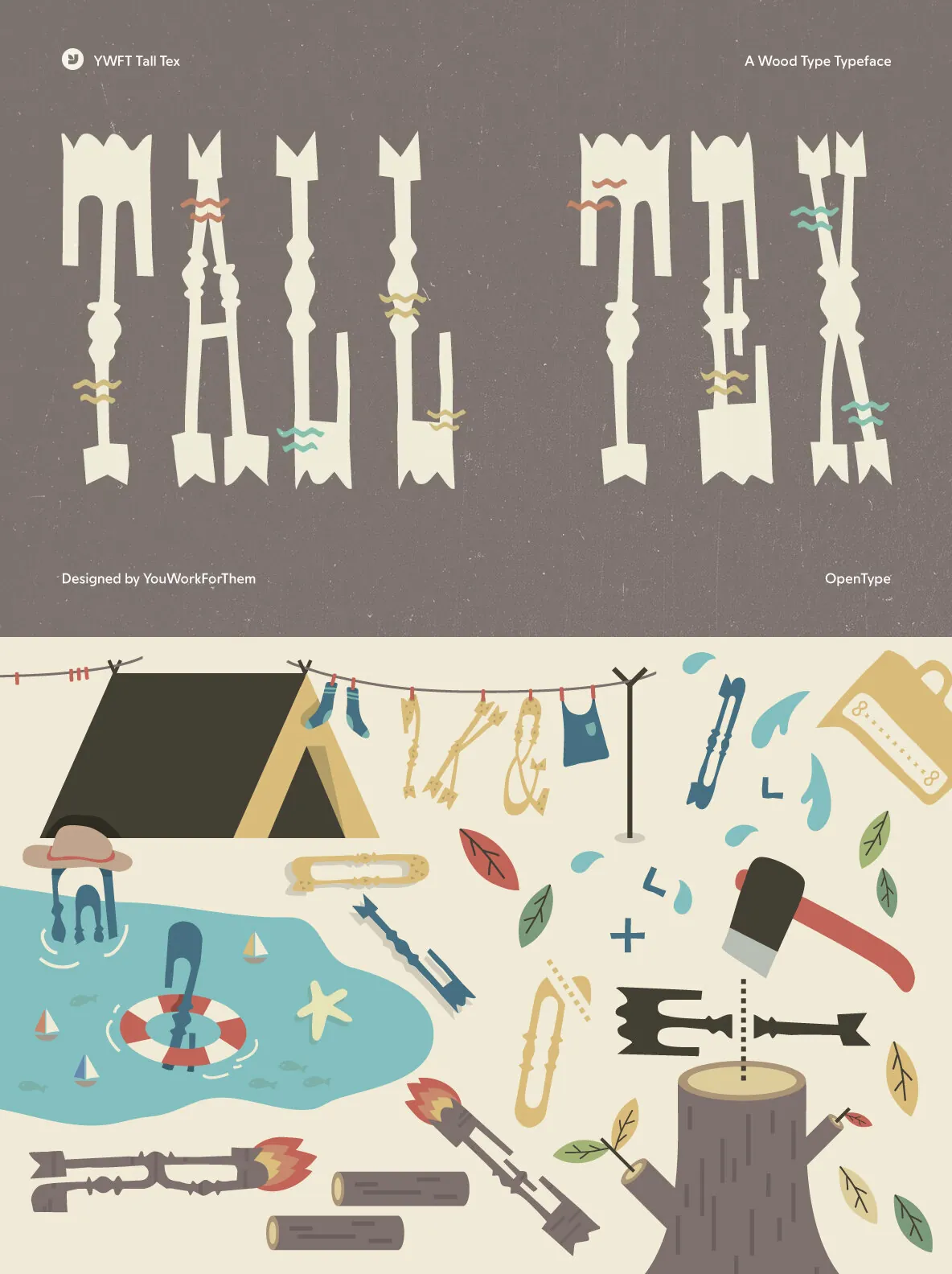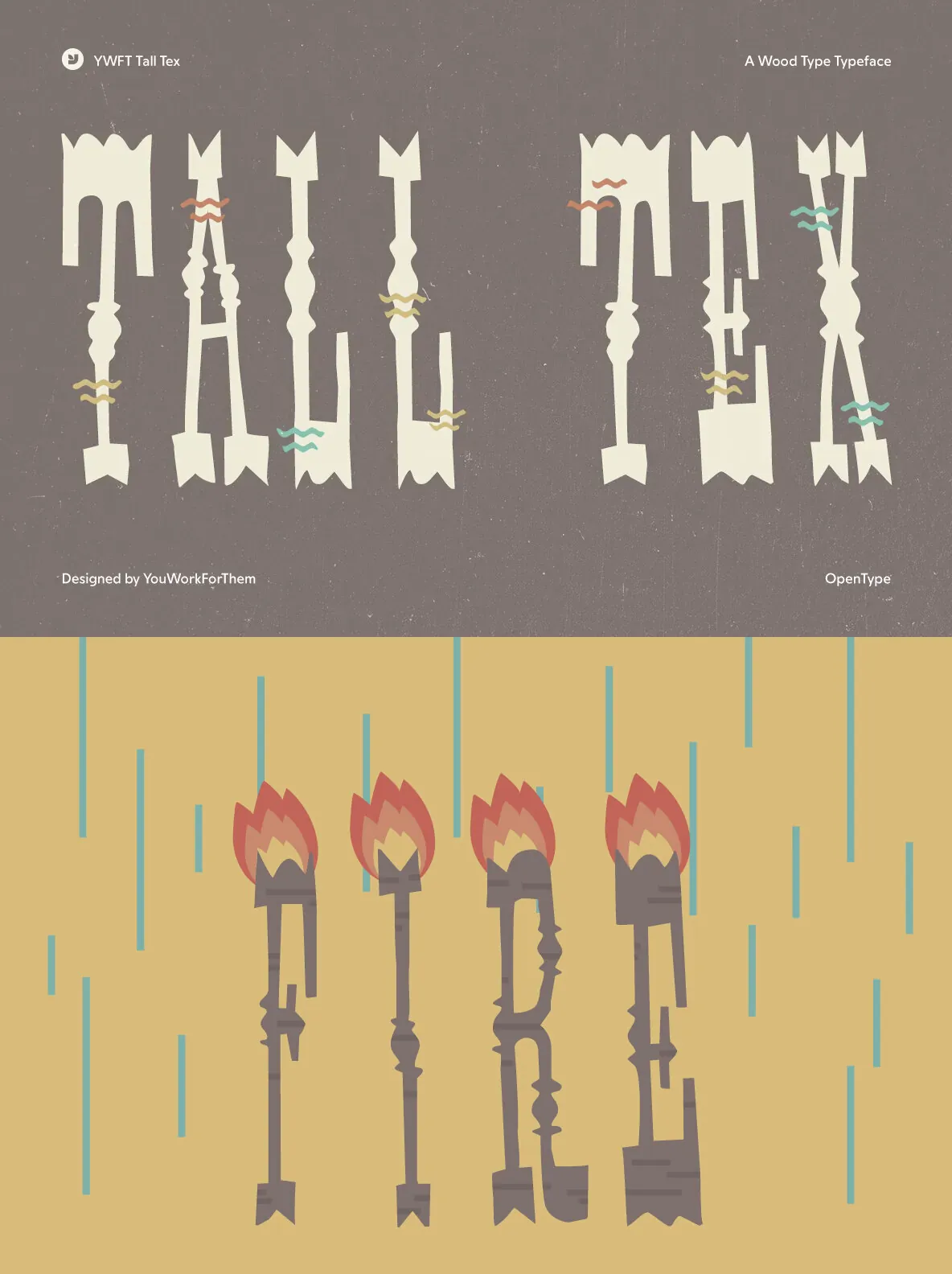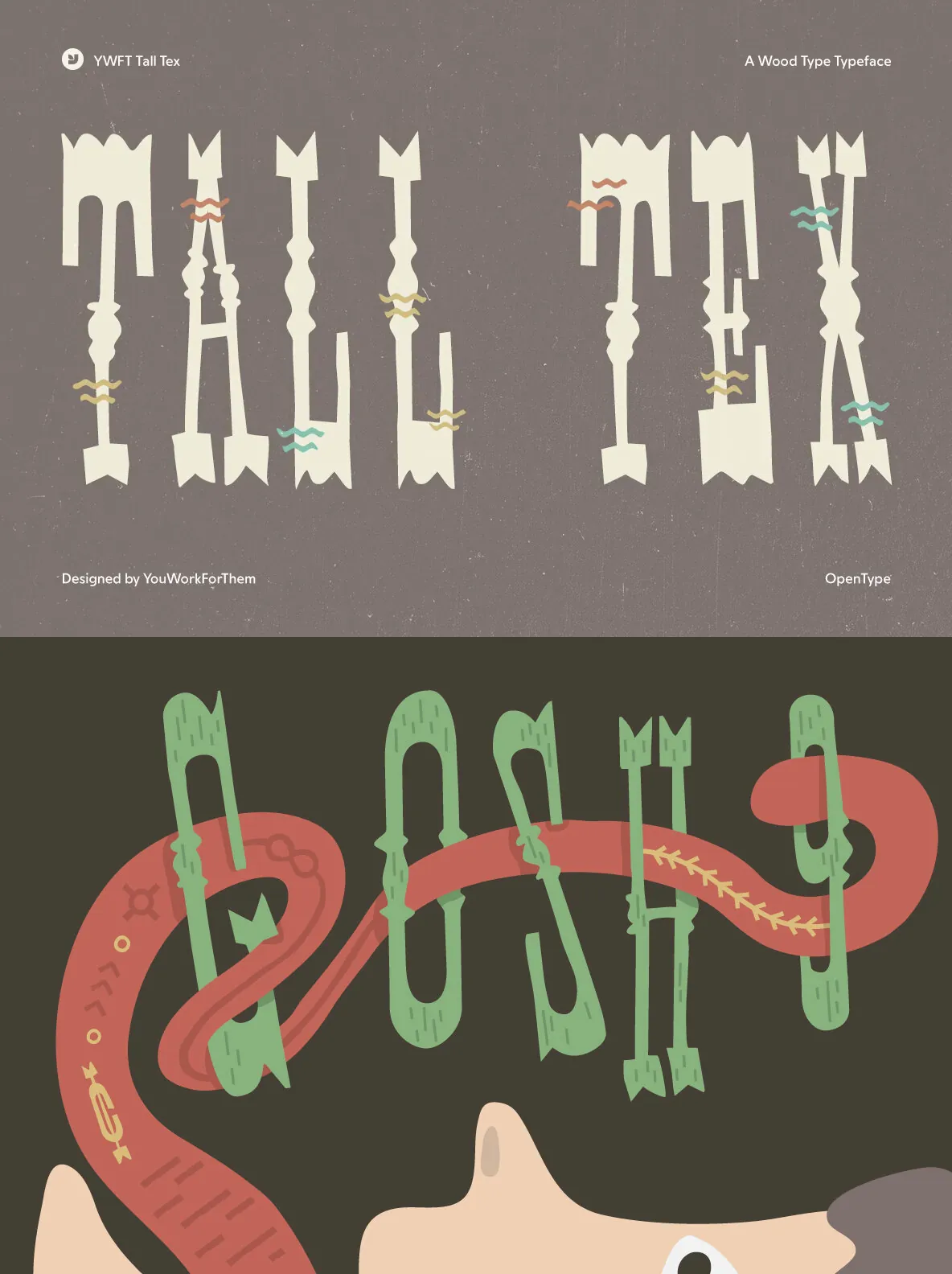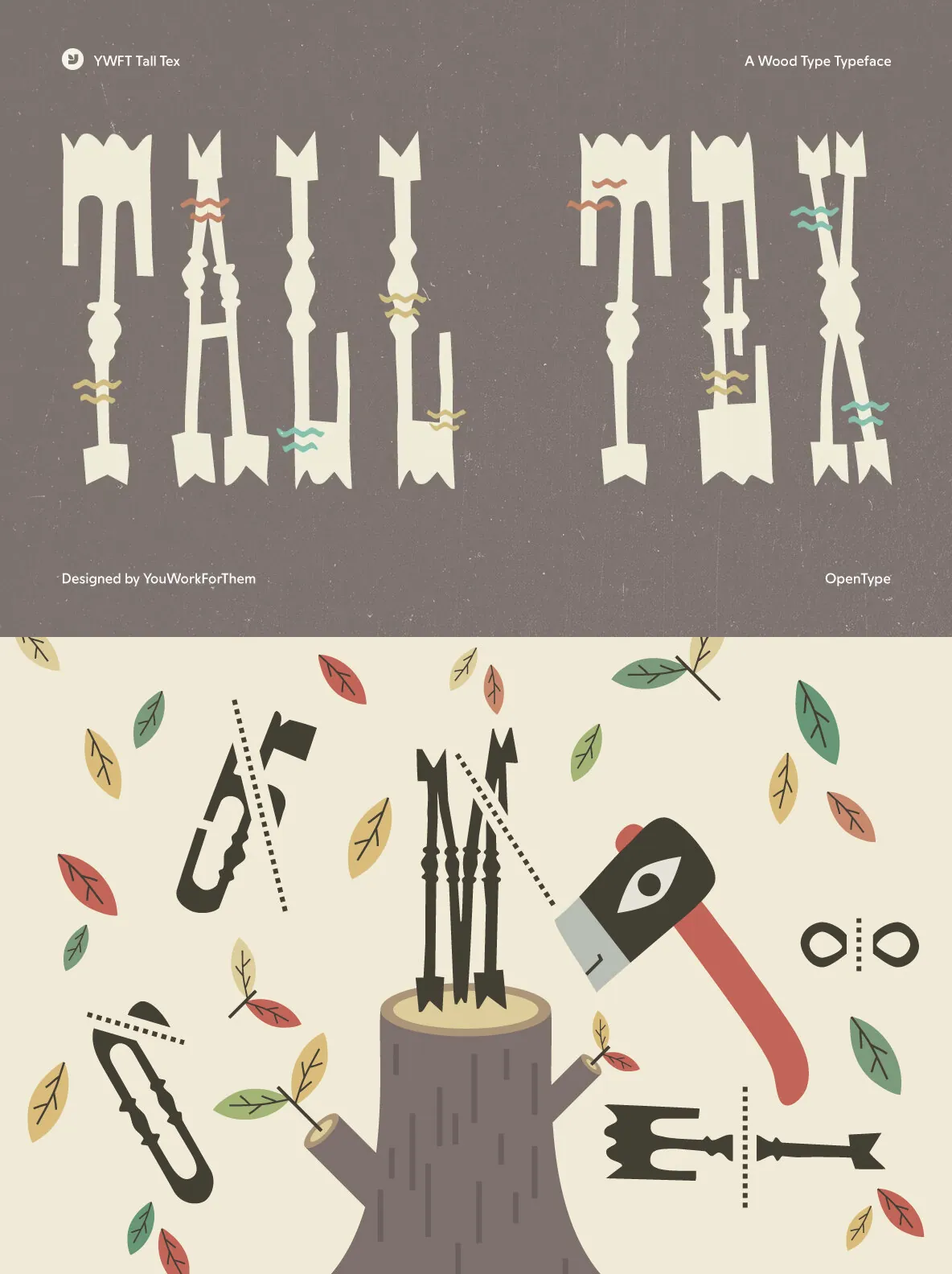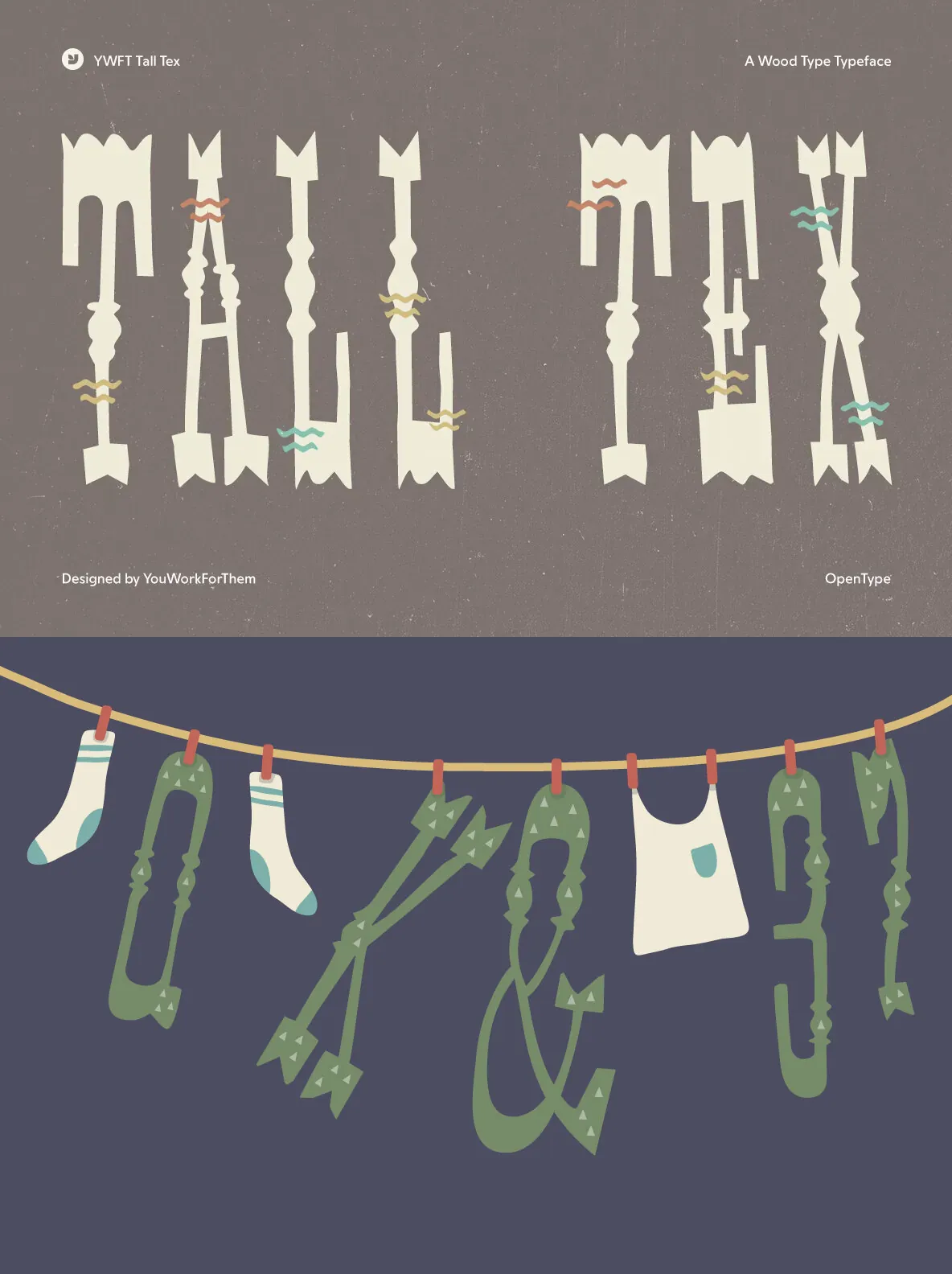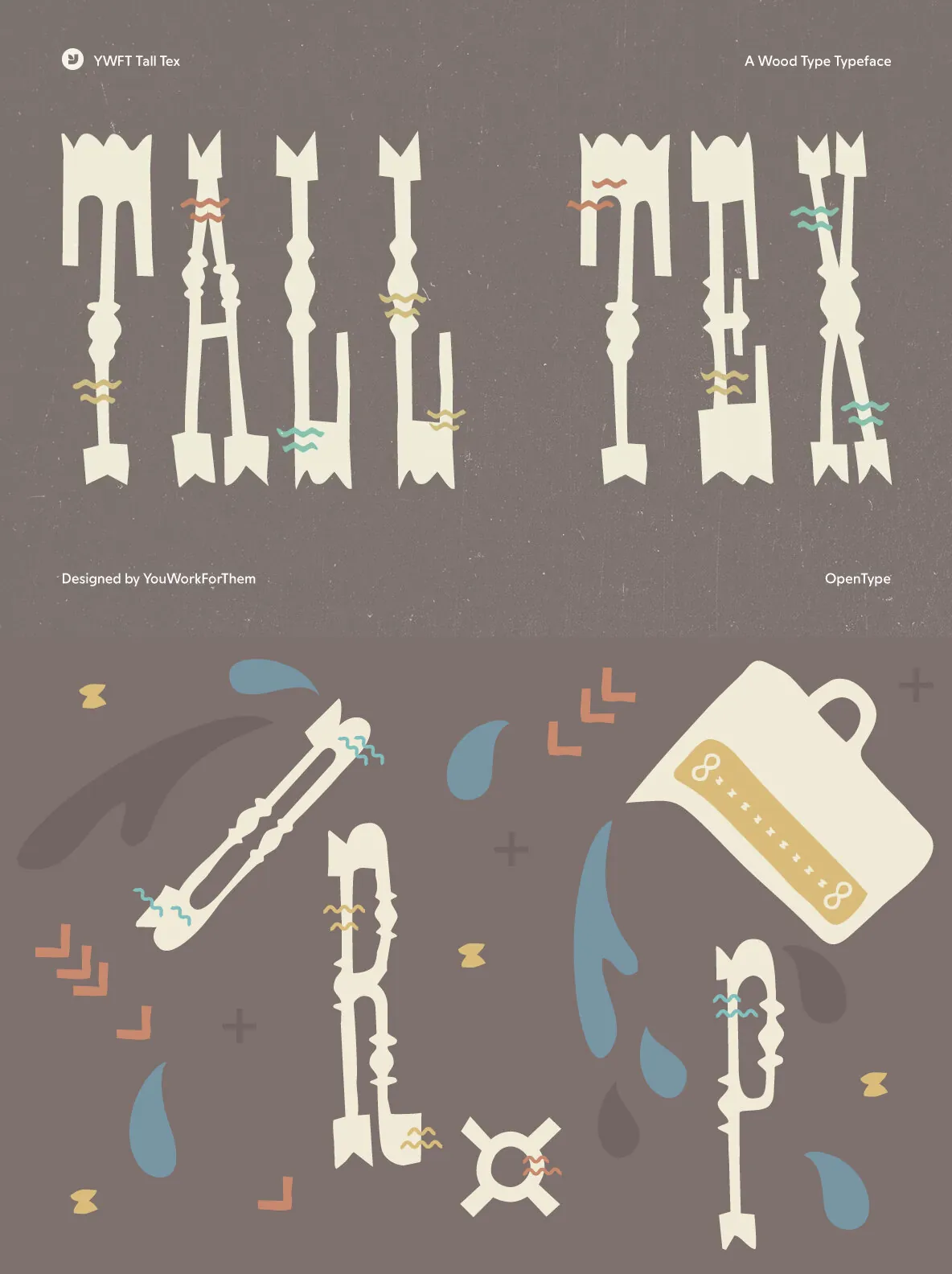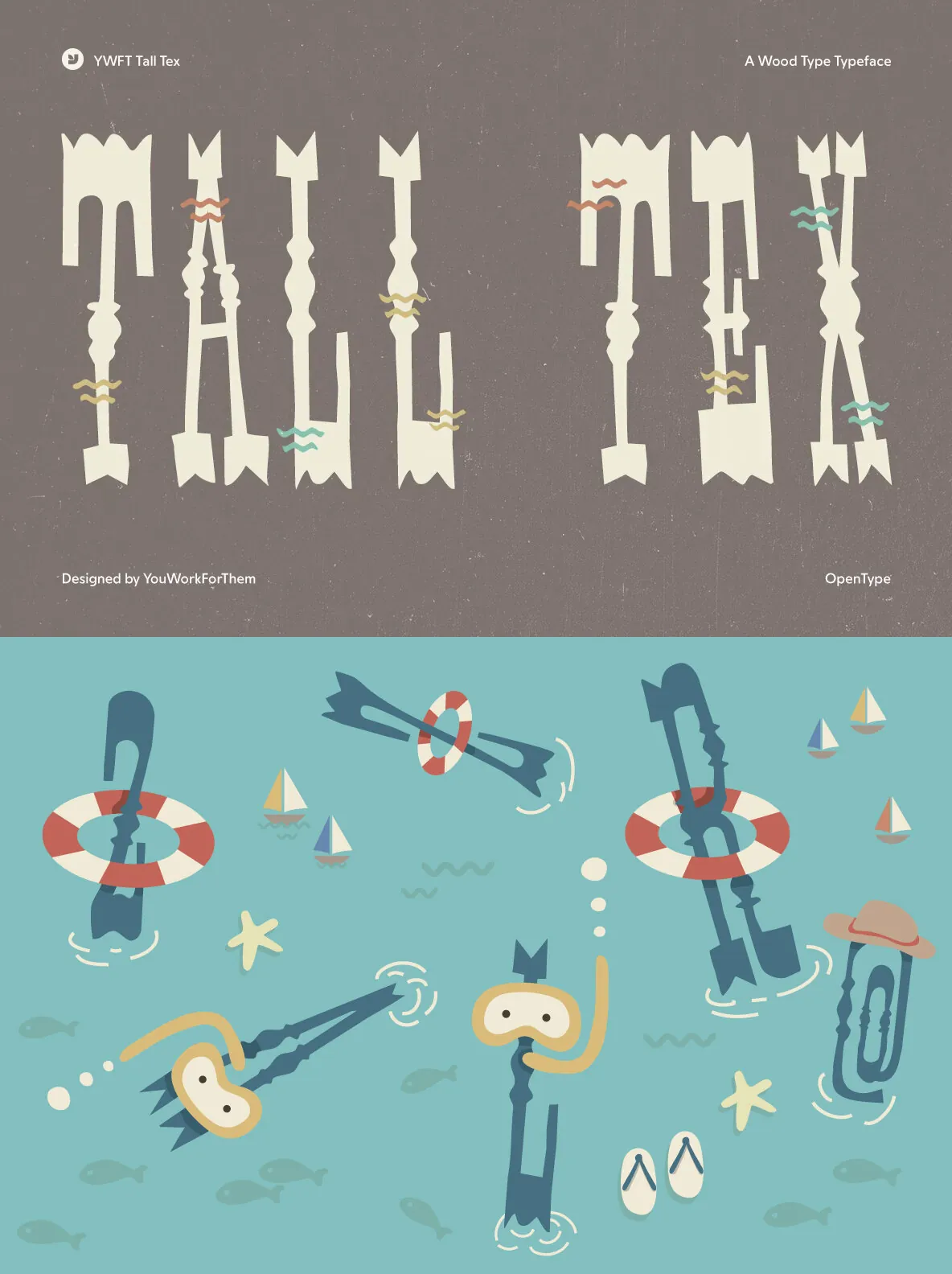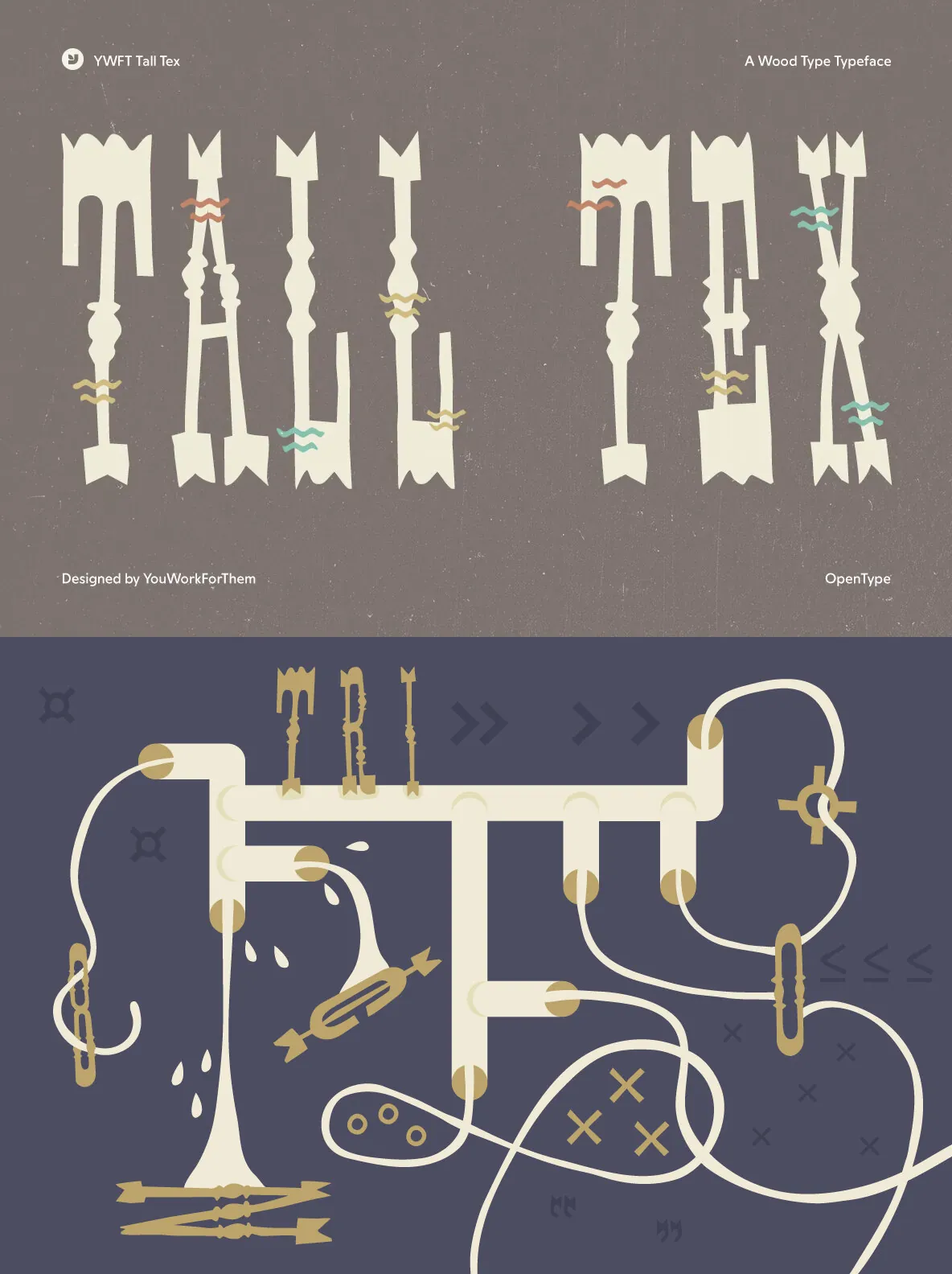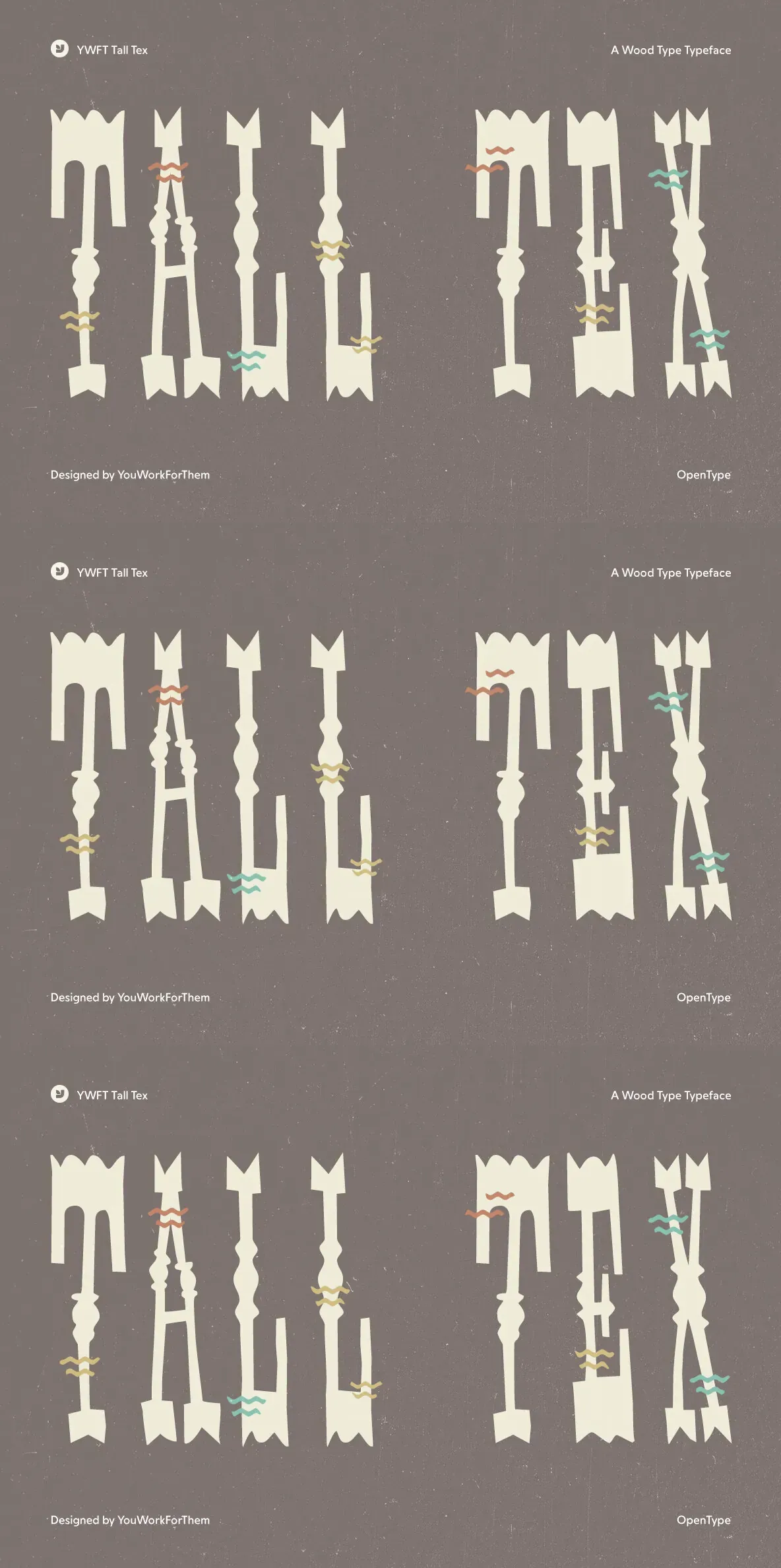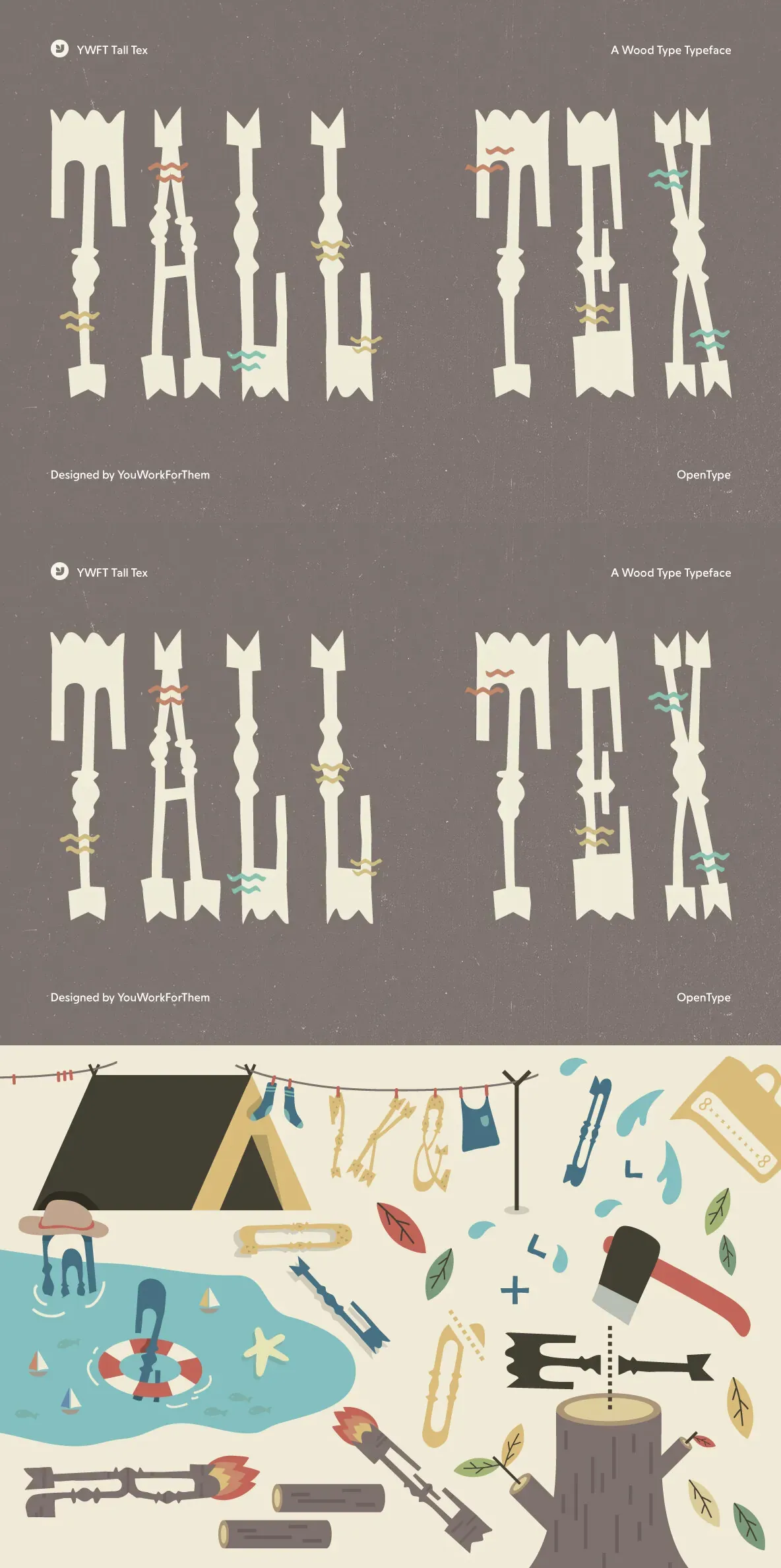
YWFT Tall Tex was originally a handset design by Jeff Rogers, now converted into a working system font by YouWorkForThem. The original cowboy and wild west influenced characters have been preserved beautifully and make this a unique and great choice for rustic, american and other quirky wood type based designs. Contains OpenType contextual alternates as well, extending the final amount of glyph designs.